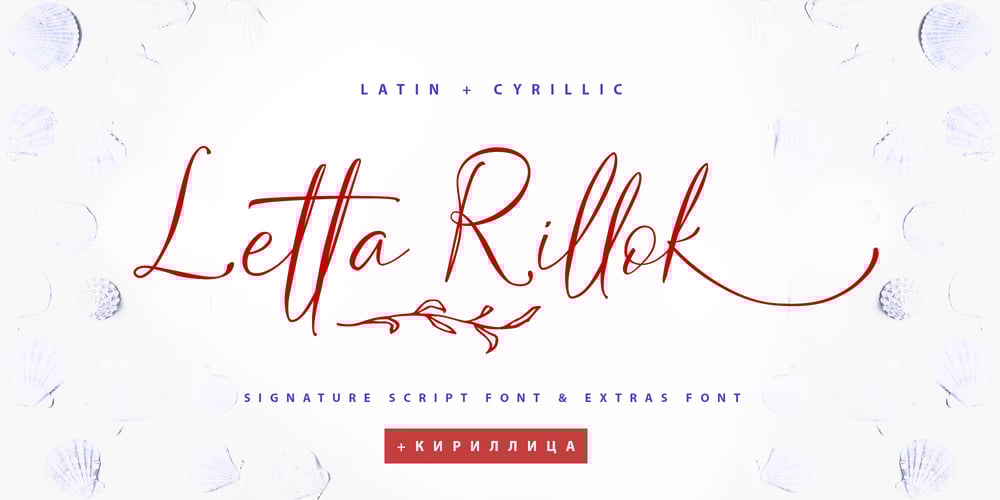
Letta Rillok Cyrillic Font Family was designed by Iryna Dviliuk and published by Ira Dvilyuk. Letta Rillok Cyrillic contains 2 styles and family package options. The Letta Rillok Cyrillic font is a handwritten calligraphic signature script font paired with additional symbols font with extras.It is the font pair with will be the best option for branding, logos, wedding invitations, social media, packaging, business cards, DIY projects, social media, and many others.Letta Rillok Symbols is the font with 62 lovely hand-drawn flourishes and illustrations.Letta Rillok script Latin part contains a full set of uppercase letters and 3 full sets of lowercase letters, (standard, initial, and final forms with flourishes or teils. To make a needed form type a letter with a number such as a1, b1, c1…after that select the word and apply the Open Type Features in programs such as Adobe Illustrator, Photoshop, and others) And 53 ligatures can be used to create a handwritten calligraphy look.The Cyrillic part of the font contains uppercase letters and 3 complete sets of lowercase letters, (standard, initial, and final form. To make a needed form type a letter with a number such as a1, б1 в1… After that select the word and apply the Open Type Features in programmes such as Adobe Illustrator, Photoshop, and others)Letta Rillok Symbols is a font with over 36 hand-drawn elements, floral illustrations, and swashes and can help to make your design unique and matchless. Combine and merge swashes and illustrations to create your own designs and make borders, frames, dividers, logos, and more (just use A-Z or a-z and 0-9 keys in the included Letta Rillok Symbols font). A different symbol is assigned to each uppercase or lowercase standard character, so you do not need graphics software, just type the letter you need.Multilingual Support for 33 languages: Latin glyphs for Afrikaans, Albanian, Basque, Bosnian, Catalan, Danish, Dutch, English, Estonian, Faroese, Filipino, Finnish, French, Galician, Indonesian, Irish, Italian, Malay, Norwegian Bokmål, Portuguese, Slovenian, Spanish, Swahili, Swedish, Turkish, Welsh, Zulu.And Cyrillic glyphs support Russian, Belorussian, Bulgarian, Ukrainian, and Kazakh languages.